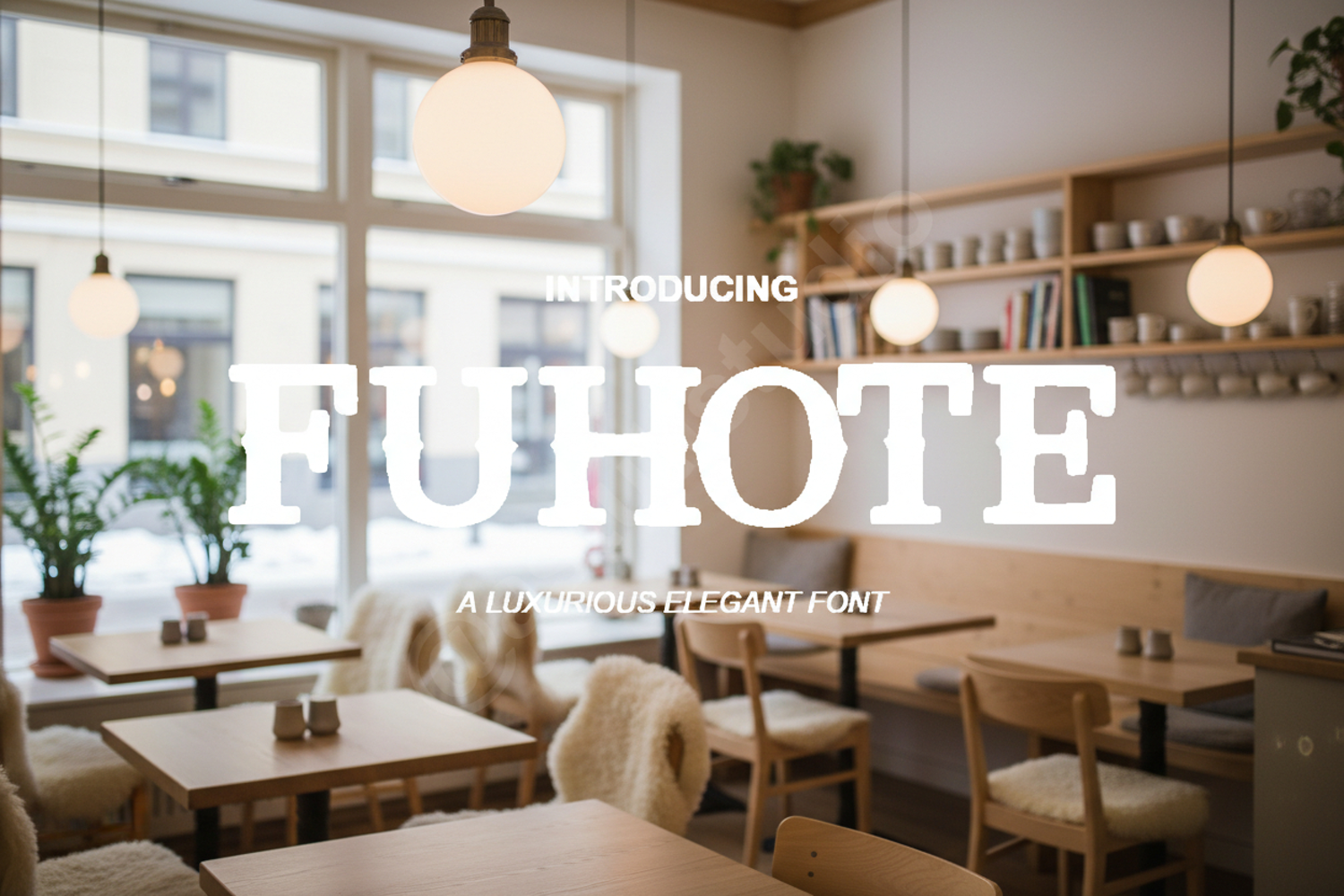
Fuhote - Modern Minimalist Sans Serif Typeface
Fuhote
Fuhote is a premium sans serif typeface that embodies modern elegance and sophisticated minimalism. Designed with clean lines and balanced proportions, this font is perfect for creators looking to add a touch of high-end polish to their projects. Whether you are working on a luxury brand identity or a sleek digital interface, Fuhote provides the versatility and clarity required for professional results.
- Branding and Identity: Create memorable logos and cohesive brand systems.
- Editorial Design: Perfect for magazine layouts, headlines, and body text.
- Wedding Invitations: Add a contemporary touch to modern stationery.
- Social Media: Elevate your Instagram posts and digital marketing graphics.
- Web Design: Ensure high readability across all devices with clean letterforms.